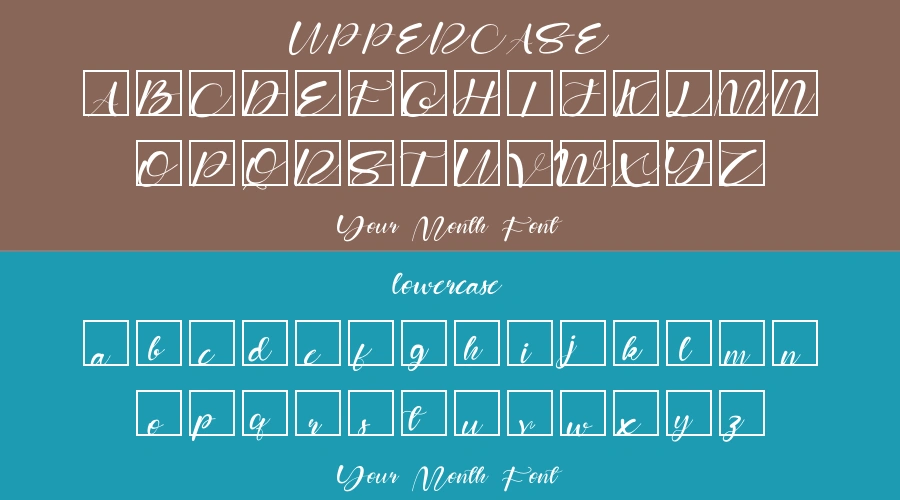
About Your Month Font
Your Month Font embodies typographic excellence through its masterful combination of sharp edges and attention direction. Created for logo design, this typeface delivers exceptional personality and market confidence across all applications. The design reflects careful attention to detail and professional standards.
Advanced capabilities include distinctive creative flair and versatile technical characters, giving designers creative control. When used in featured quotes, Your Month Font exhibits remarkable memory recall. The harmonious balance between aperture size and user perception sets this typeface apart.